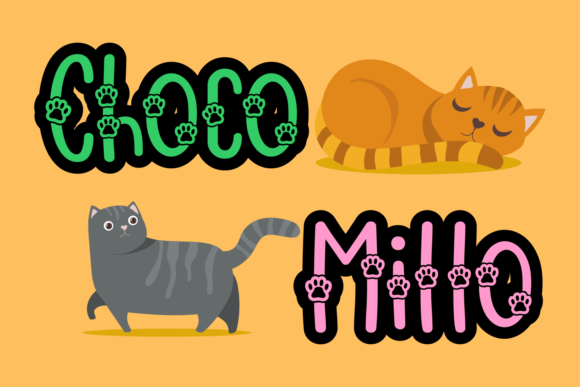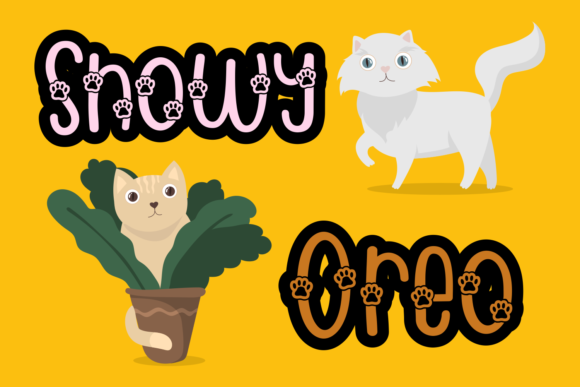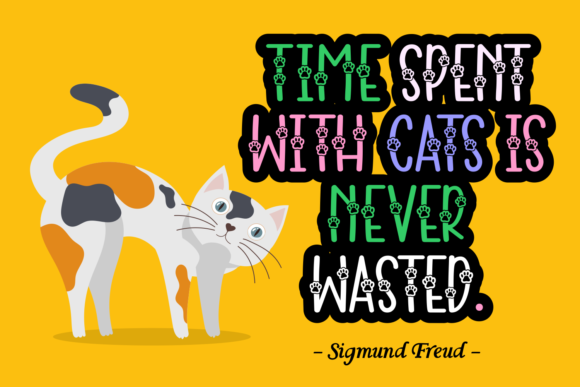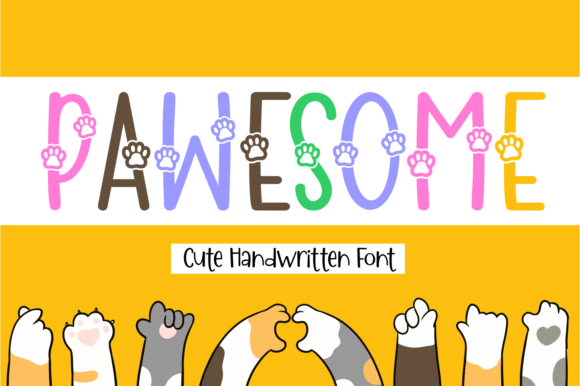
Introduction to Pawesome Font
Pawesome is a cool and fun decorative font.
Whether you use it for cartoon related designs, children games or just any creation that requires a lovely touch, this font will be an amazing choice .
Pawesome Font offers exceptional quality and versatility, making it a valuable addition to your design toolkit. Whether you’re creating for personal projects or commercial use, Pawesome Font delivers professional results.